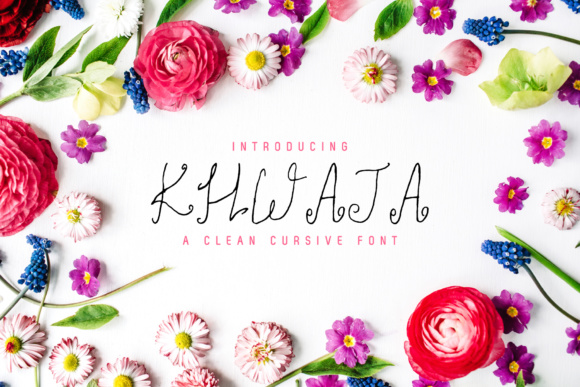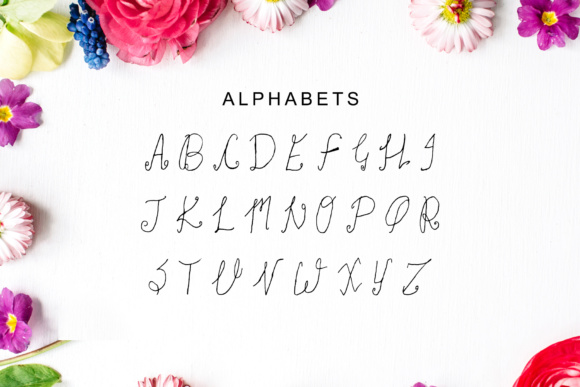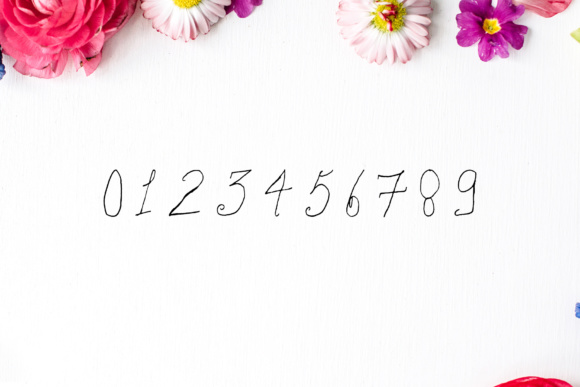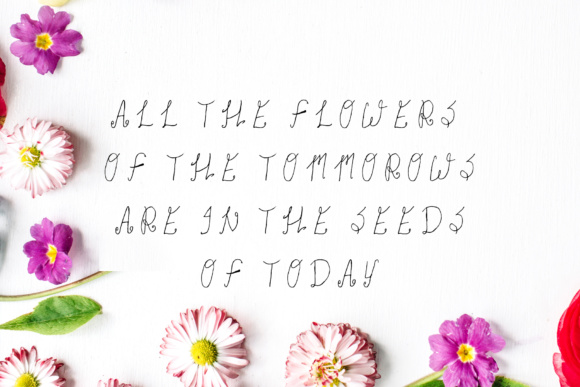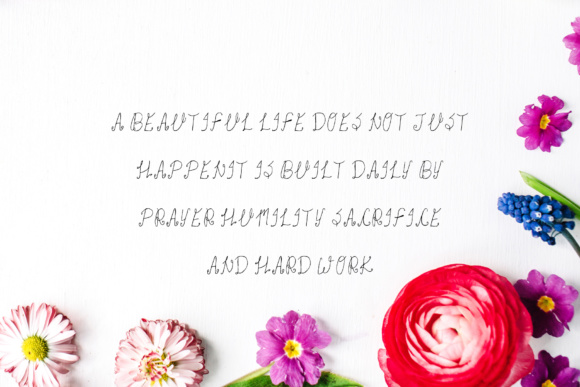
Khwaja Script Font
About Khwaja Script Font
Khwaja Script is a clean, classy, beautiful handwritten brush style font that contains 3 weights. Khwaja is perfect for creating authentic hand-lettered text quickly & easily. Khwaja can be used for various purposes such as: branding, websites, clean designs, logos, headlines, banners and much more! Khwaja comes in uppercase style only.